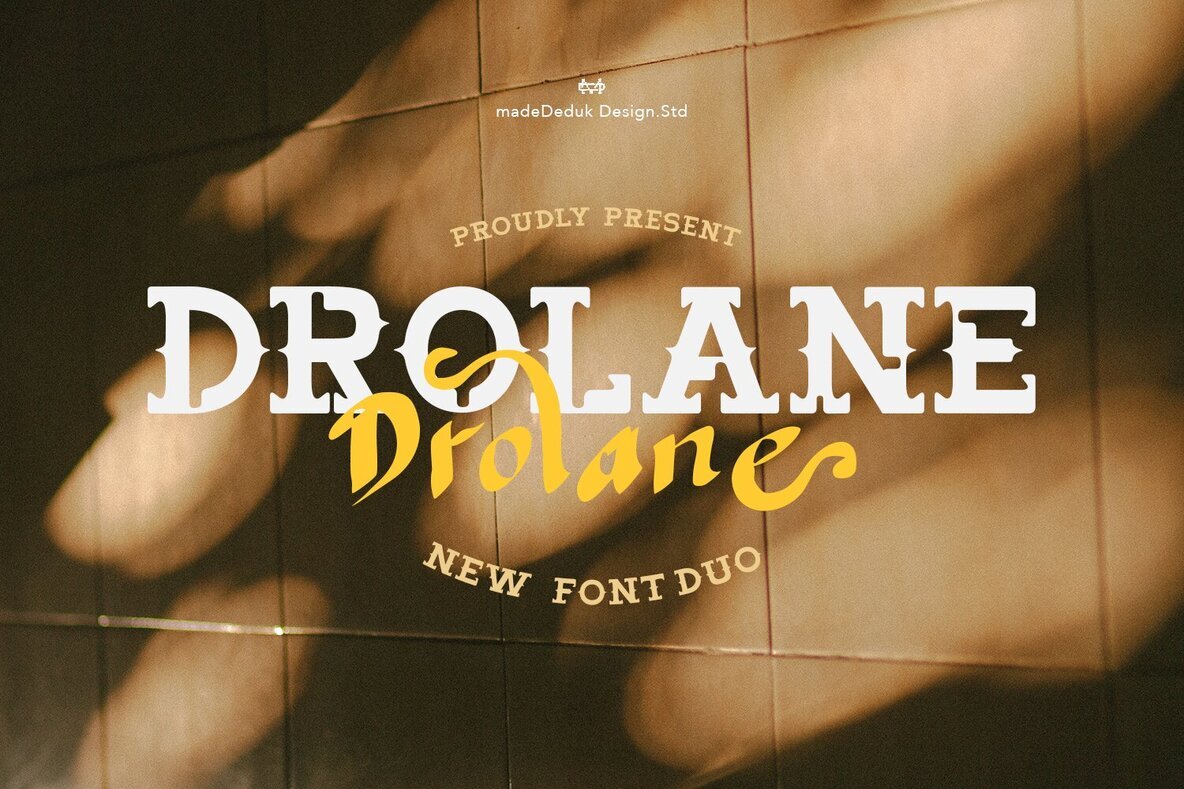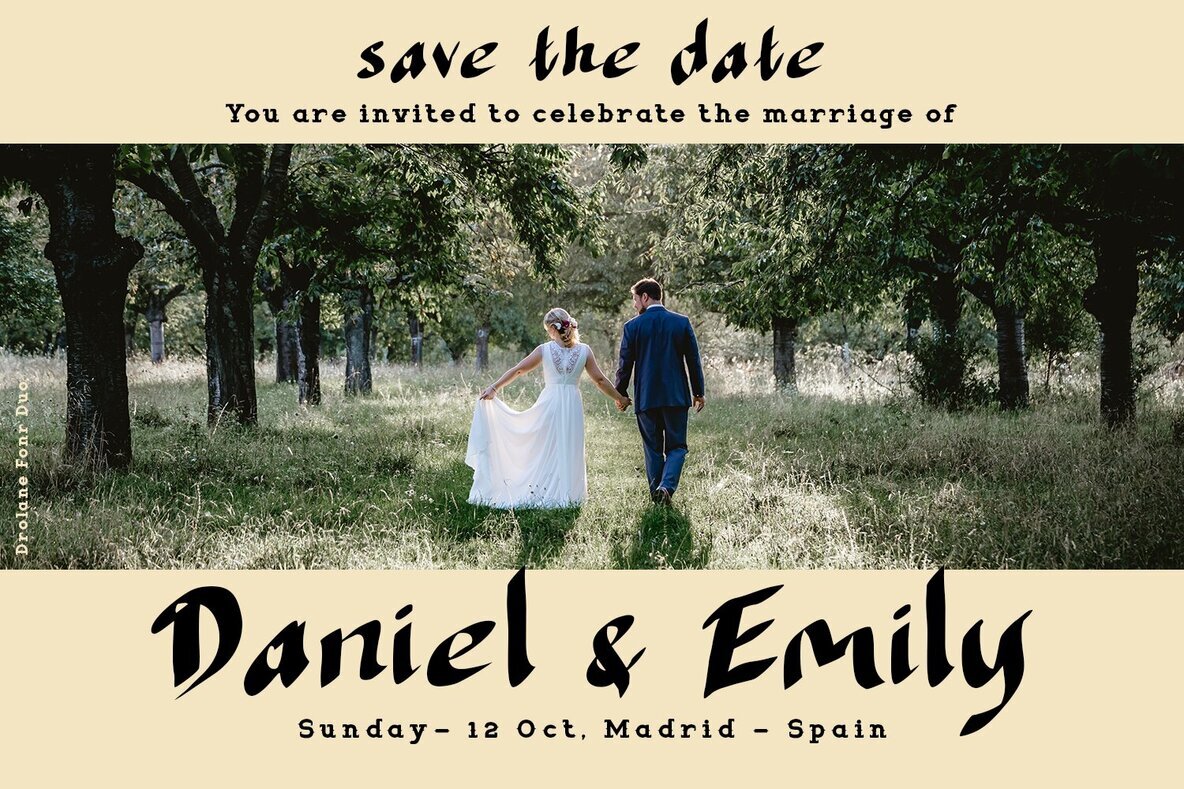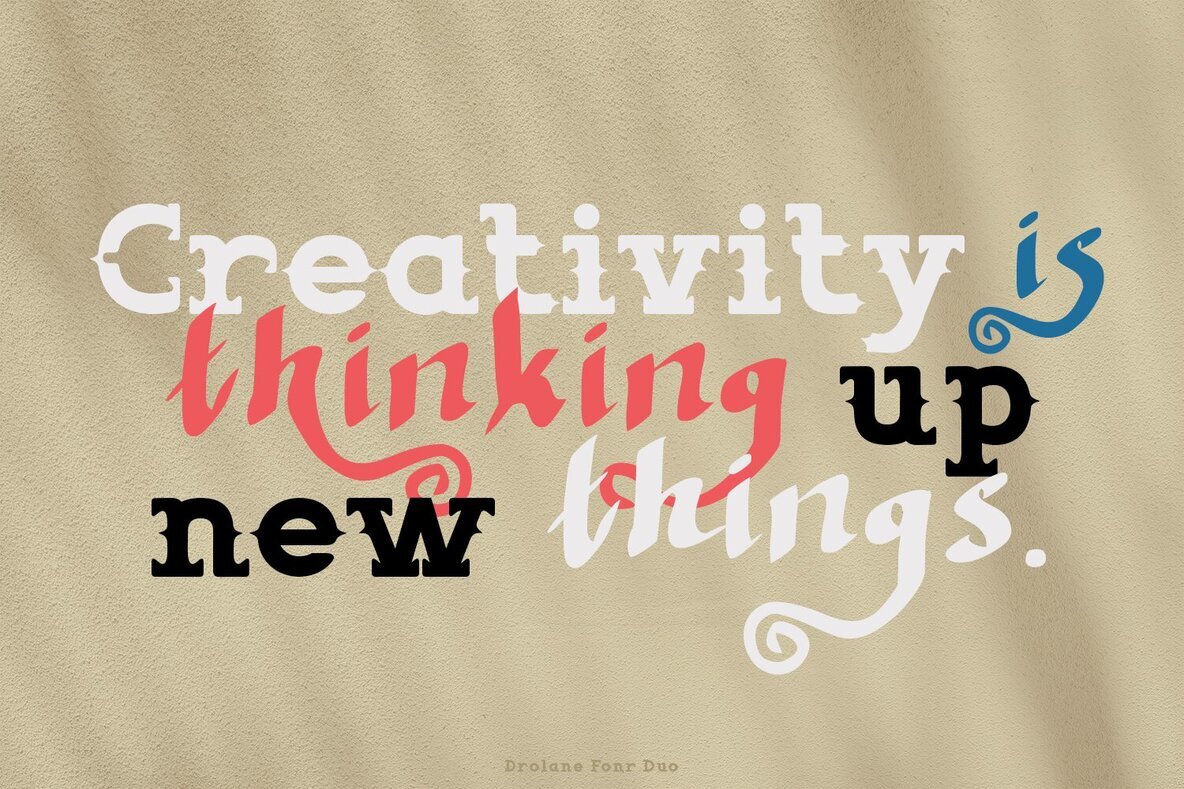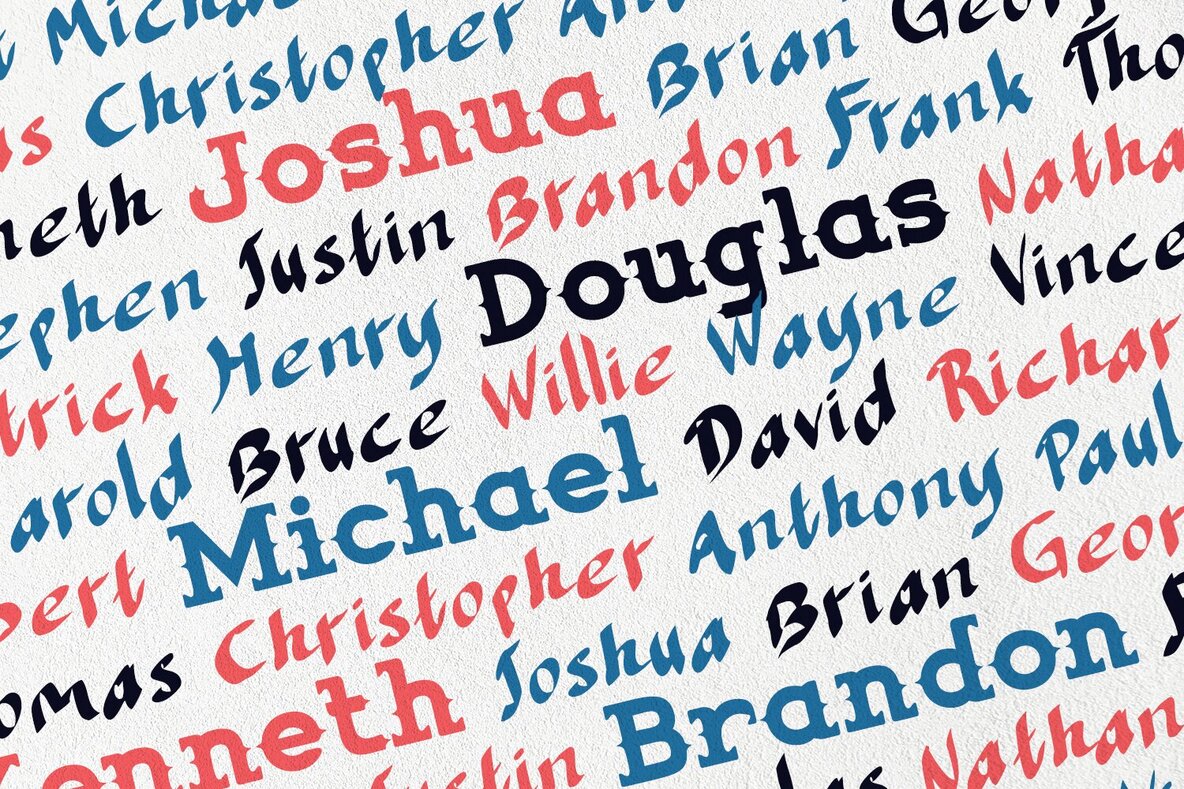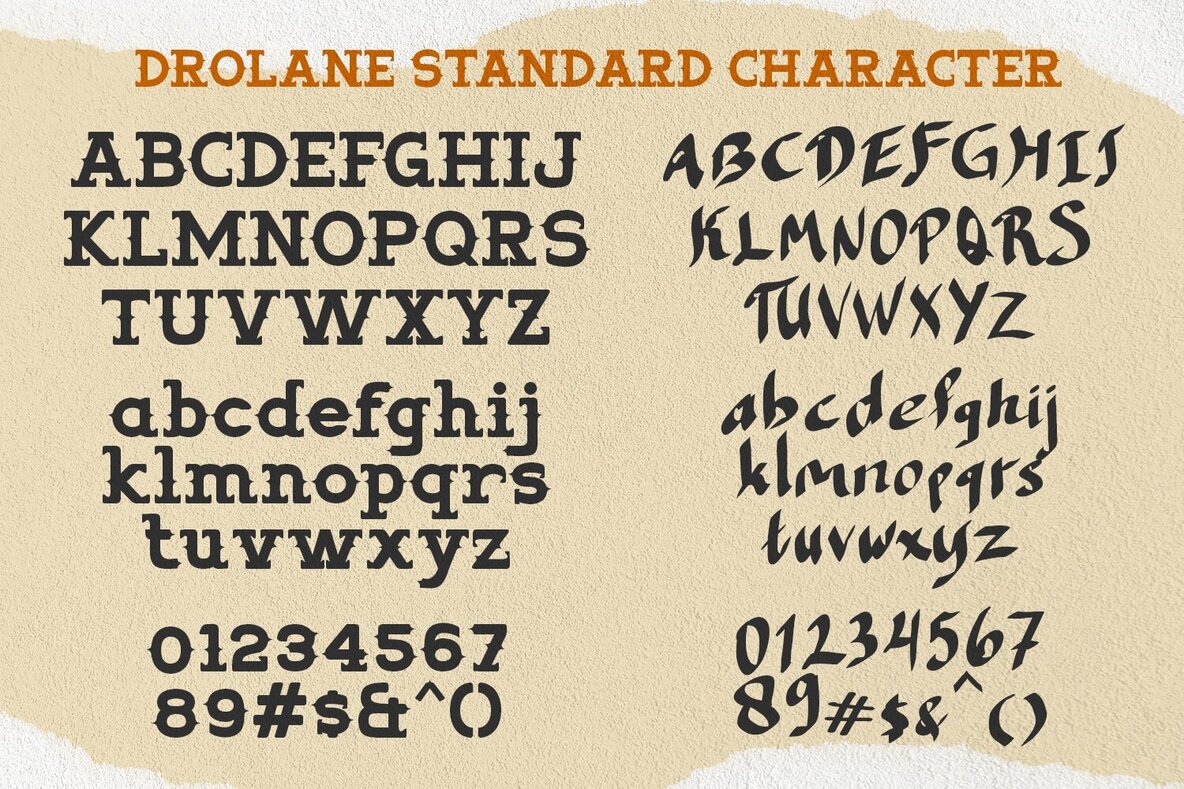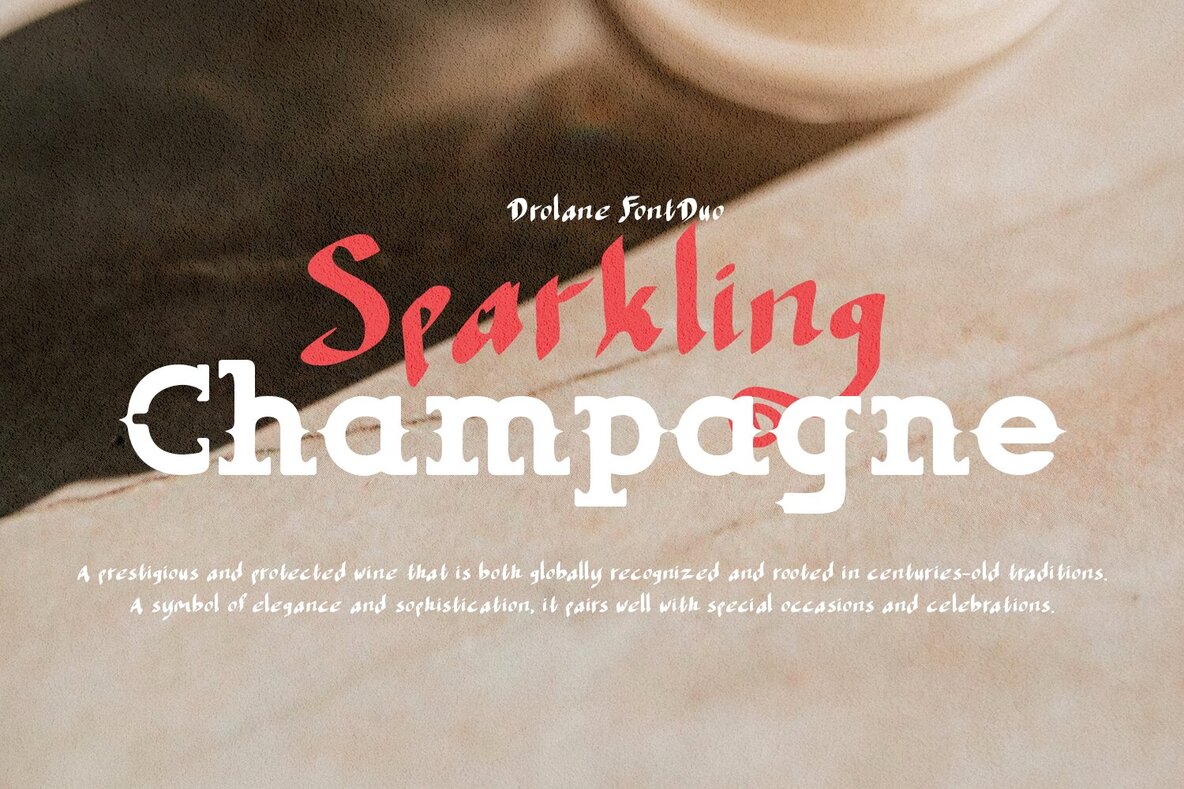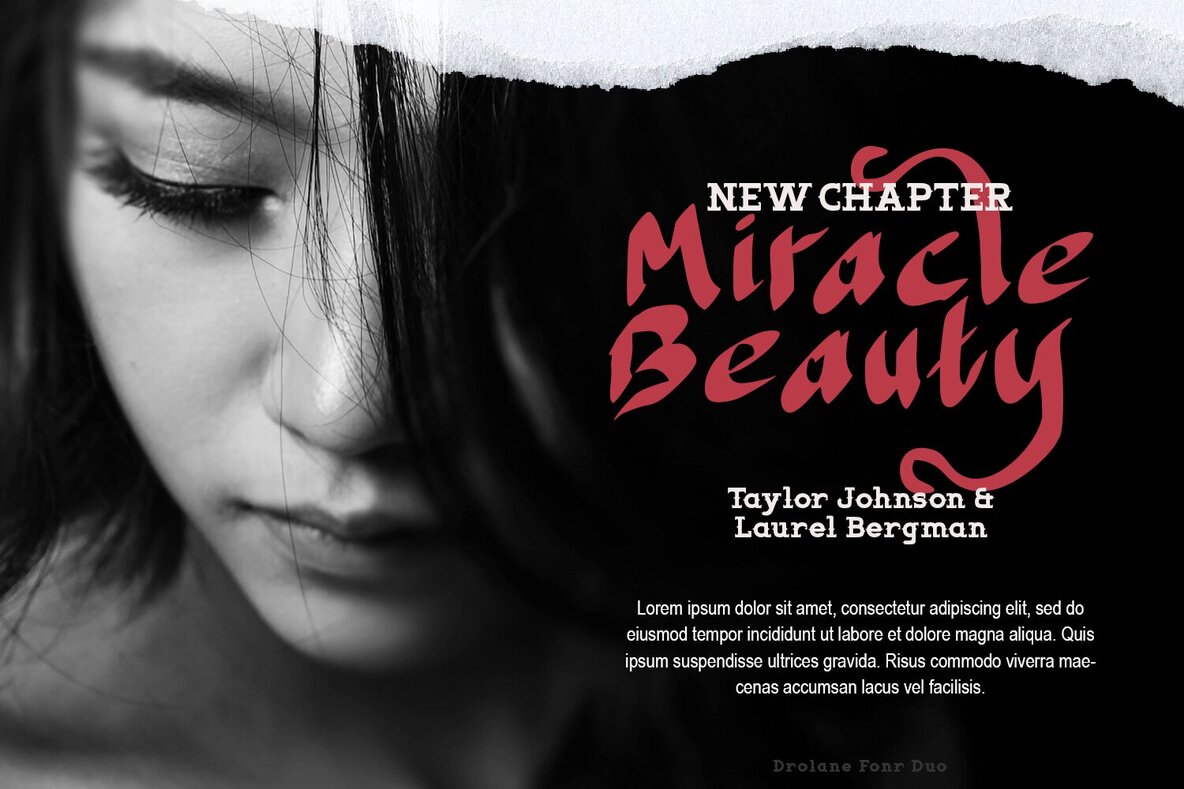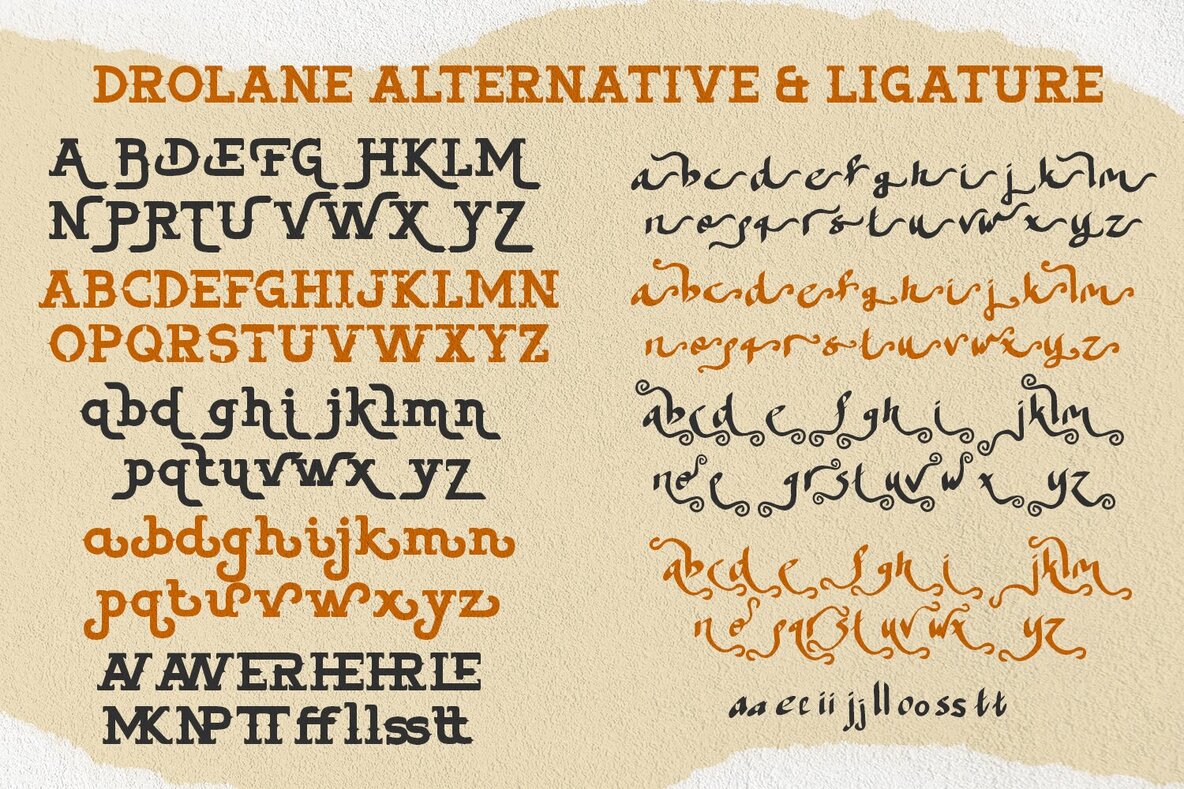
Drolane Font
Drolane Handwritten
Drolane Serif
Elevate your design projects with Drolane, a stunning serif font duo skilfully merged with brush handwriting. Its minimalist charm paired with a touch of elegance makes it ideal for modern logos, sophisticated websites, and captivating social media quotes. Whether you're designing wedding stationery or crafting stylish branding materials, Drolane adds a refined yet alluring aesthetic to every project. Discover the allure of simplicity with a font that effortlessly enhances your creative expressions.Drolane Font Duo: Elegance Meets Simplicity